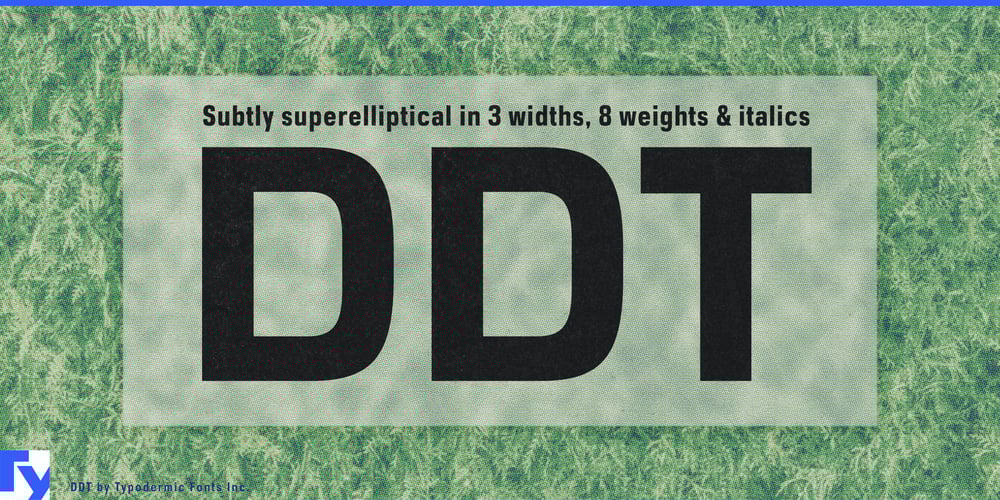
Ddt font
Ddt Font Family was designed by Ray Larabie and published by Typodermic. Ddt contains 48 styles and family package options. Introducing DDT, a powerhouse typeface that combines the best of classic design principles with cutting-edge functionality. Drawing inspiration from titans like Univers and Eurostile, DDT’s superelliptical shape strikes a perfect balance between clarity and gravitas.This isn’t just another sans-serif font—it’s a complete typographic toolkit. DDT offers an impressive array of numeric styles, including monospaced lining numerals for precise tabular work, proportional lining numerals for headlines, and proportional old-style numerals for body text. With OpenType fractions and numeric ordinals at your fingertips, DDT is ready to tackle everything from scientific papers to sports statistics. Available in both condensed, regular, and expanded widths, each with seven weights and matching italics, DDT provides unparalleled versatility. Whether you’re designing a sleek corporate report or a bold advertising campaign, DDT has the range to meet your needs.But DDT’s flexibility doesn’t stop there. For those who demand even more control, there’s DDT Variable. This cutting-edge version allows you to fine-tune weight and width with precision, opening up a new world of typographic possibilities. DDT speaks your language—literally. With support for Latin-based European languages, Vietnamese, Greek, and most Cyrillic-based writing systems, this font ensures your message comes across loud and clear, no matter the audience.Choose DDT when you need typography that works as hard as you do. It’s more than a font—it’s a statement of professionalism, a tool for clear communication, and a foundation for designs that demand to be taken seriously.In a world of fleeting trends, DDT stands as a beacon of timeless functionality and style. It’s time to elevate your designs with typography that means business. Experience the power of DDT today.